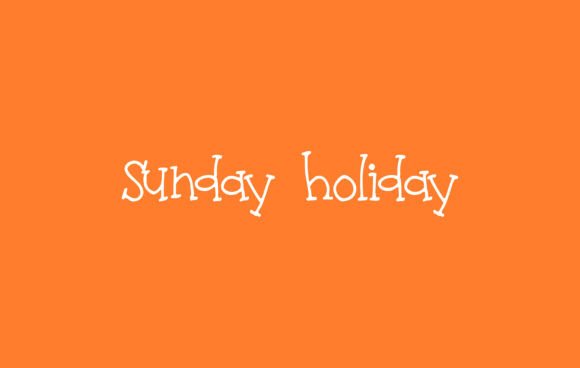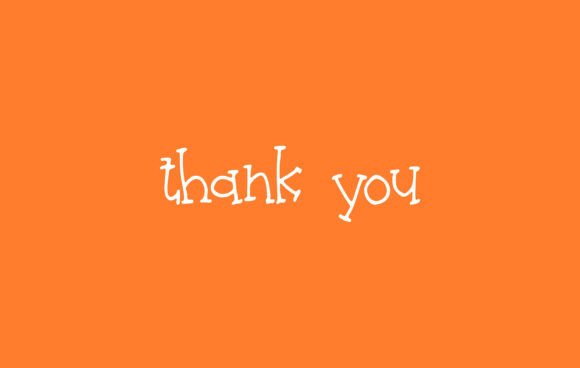
Discover the Charm of Dragon Quest Font: Elevate Your Designs with a Touch of Romance
Are you on the hunt for a font that adds a dash of romance and whimsy to your designs? Look no further than the Dragon Quest font, a beautiful handwritten font that is sure to capture the hearts of designers and crafters alike. With its authentic, cursive feel and legible style, this font is perfect for a wide range of creative projects, from magazine headlines and social media graphics to wedding invitations, branding, and more.
The Unique Characteristics of Dragon Quest Font
So, what sets the Dragon Quest font apart from other fonts out there? For starters, its handwritten design gives it a distinctly romantic and personal touch. The flowing curves and subtle imperfections of the font’s strokes evoke a sense of nostalgia and warmth, making it perfect for designs that require a human touch. Additionally, the font’s legibility makes it an excellent choice for both title and body text, allowing you to use it consistently throughout your designs.
Endless Design Possibilities with Dragon Quest Font
One of the best things about the Dragon Quest font is its versatility. Whether you’re a designer, crafter, or DIY enthusiast, this font can be used to create a wide range of projects, including:
- Magazine headlines and articles: Add a touch of elegance and sophistication to your magazine designs with the Dragon Quest font.
- Social media graphics: Make your social media posts stand out with eye-catching graphics featuring the Dragon Quest font.
- Branding and logos: Use the Dragon Quest font to create a unique and memorable brand identity.
- Wedding invitations and cards: Add a romantic touch to your wedding stationery and cards with this beautiful font.
- Crafting and DIY projects: Use the Dragon Quest font to add a personal touch to your crafting and DIY projects, such as handmade cards, gift tags, and more.
Why Designers and Crafters Love Dragon Quest Font
So, why have designers and crafters fallen in love with the Dragon Quest font? Here are just a few reasons:
- Unique and distinctive: The Dragon Quest font has a unique and distinctive style that sets it apart from other fonts.
- Legible and readable: The font’s clear and legible design makes it easy to read, even at small sizes.
- Romantic and whimsical: The font’s romantic and whimsical feel makes it perfect for designs that require a touch of personality and charm.
- Versatile: The Dragon Quest font can be used for a wide range of projects, from digital designs to print materials.
Tips for Using Dragon Quest Font in Your Designs
To get the most out of the Dragon Quest font, here are a few tips to keep in mind:
- Pair it with complementary fonts: Experiment with pairing the Dragon Quest font with other fonts to create a unique and visually appealing combination.
- Use it consistently: Use the Dragon Quest font consistently throughout your designs to create a cohesive and professional look.
- Experiment with colors and textures: Don’t be afraid to experiment with different colors and textures to add depth and interest to your designs.
In conclusion, the Dragon Quest font is a beautiful and versatile font that is sure to become a favorite among designers and crafters. With its romantic and whimsical feel, legible design, and endless possibilities for use, this font is perfect for anyone looking to add a touch of personality and charm to their designs. Whether you’re creating magazine headlines, social media graphics, wedding invitations, or crafting and DIY projects, the Dragon Quest font is sure to elevate your designs to the next level.